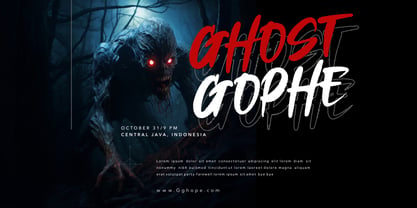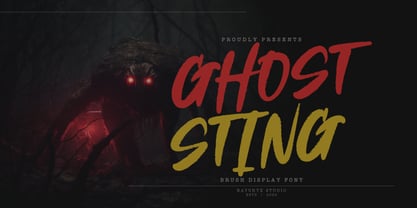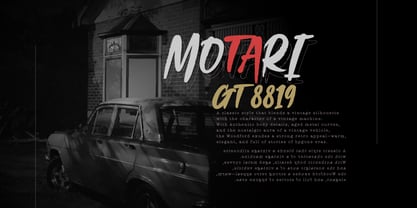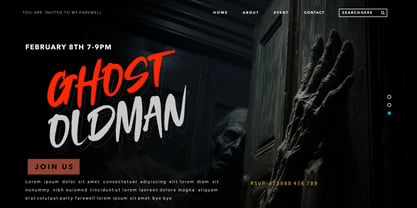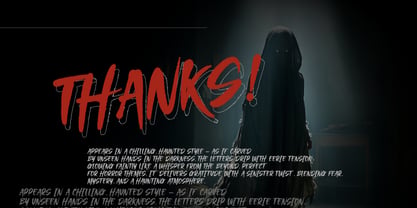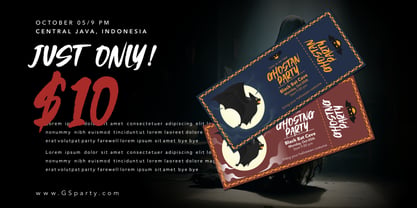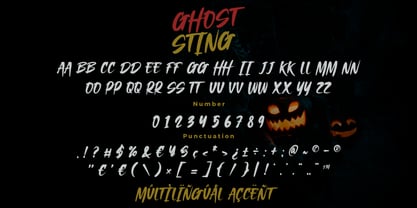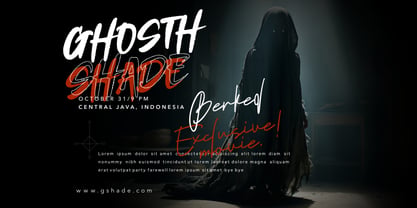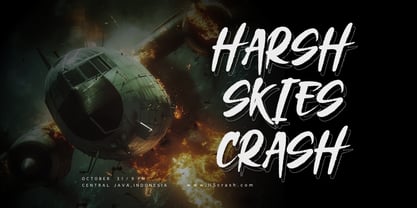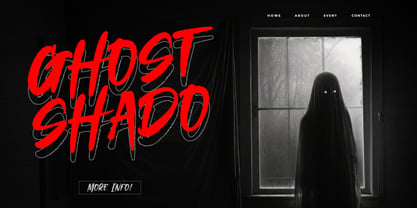
Ghost Sting
von Bayuktx
Die Schriftfamilie Ghost Sting wurde von Bayu Aji Fais Mursid entworfen und von Bayuktx veröffentlicht. Ghost Sting enthält 1 Stile. Mehr über diese Familie
Ghost Sting – Brush Display Font Ghost Sting Brush Display Font unleashes a fierce fusion of wild brush energy and sinister visual drama. With aggressive strokes, jagged edges, and an instinctively chaotic flow, this typeface captures the raw terror of horror atmospheres and monstrous storytelling. Every letter hits with force — sharp, loud, and untamed — making Ghost Sting perfect for designs that demand shock, tension, and unforgettable impact. Crafted with rough, hand-painted textures, Ghost Sting mirrors the frantic feel of scratched walls, creature marks, and chaotic survival scenes. Its gritty brush details enhance the intensity of every composition, giving your titles a dangerous, cinematic presence. From eerie posters to spine-chilling teasers, this font transforms simple text into scenes filled with fear, suspense, and dark adrenaline. Inspired by creepy forests, glowing-eyed monsters, and shadowy nightmare creatures, Ghost Sting embodies the essence of horror survival and visceral storytelling. Whether used at large scale for a poster or as a strong accent in digital graphics, it instantly injects fear, chaos, and raw artistic aggression. Key Features : * Uppercase & Lowercase * Numerals & Punctuation * Multilingual Support * PUA Encoded & OpenType Features * Rough Brush Texture Suitable For : * Horror & Thriller Movie Titles * Halloween Posters & Spooky Event Flyers * Dark Fantasy & Monster Concepts * Game Titles, Streaming Thumbnails & Esport Graphics * Book Covers & Dramatic Illustration Text * Creepy Aesthetic Artwork * Survival, Zombie & Creature-Themed Designs With Ghost Sting Brush Display Font, your designs strike with primal intensity — delivering fear, tension, and brutal character in every stroke.